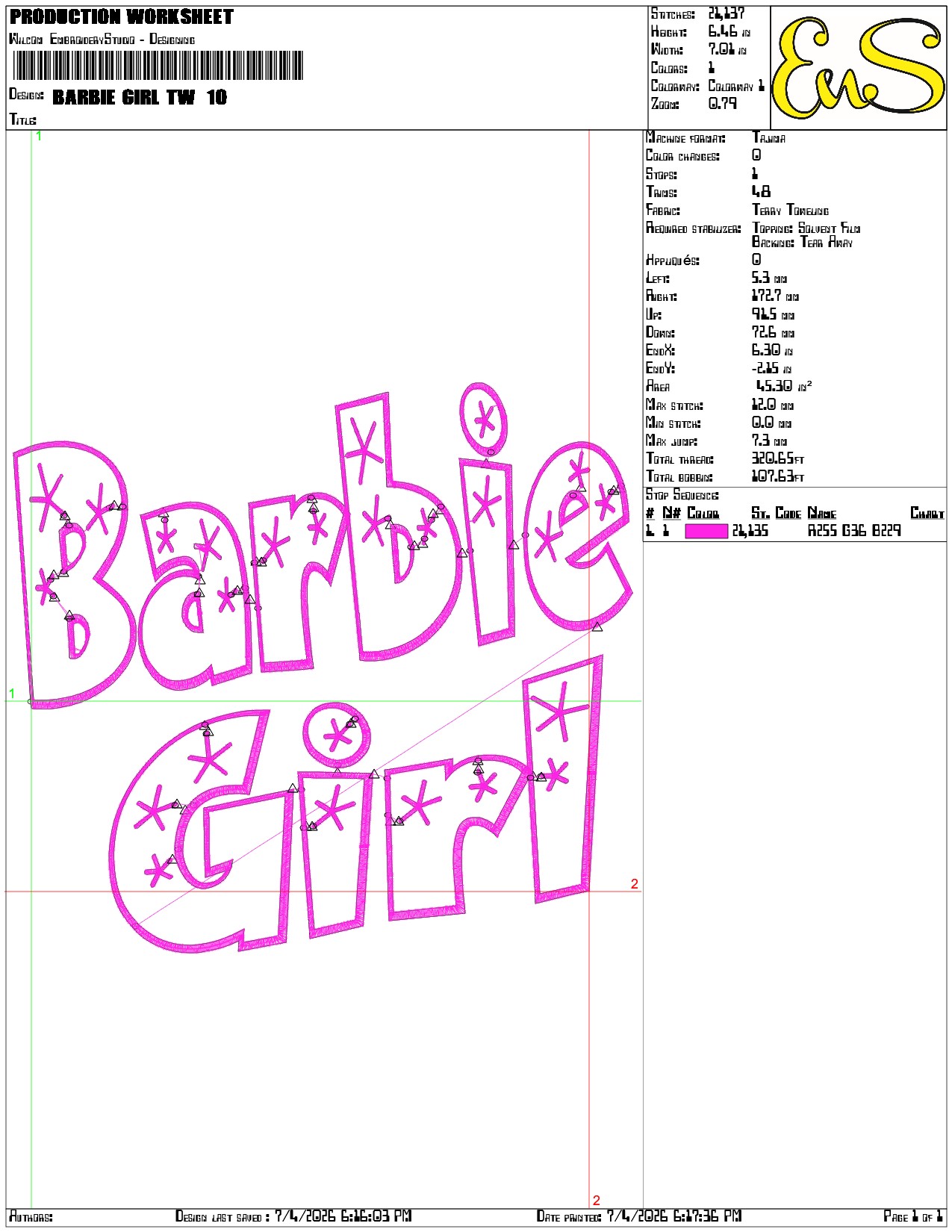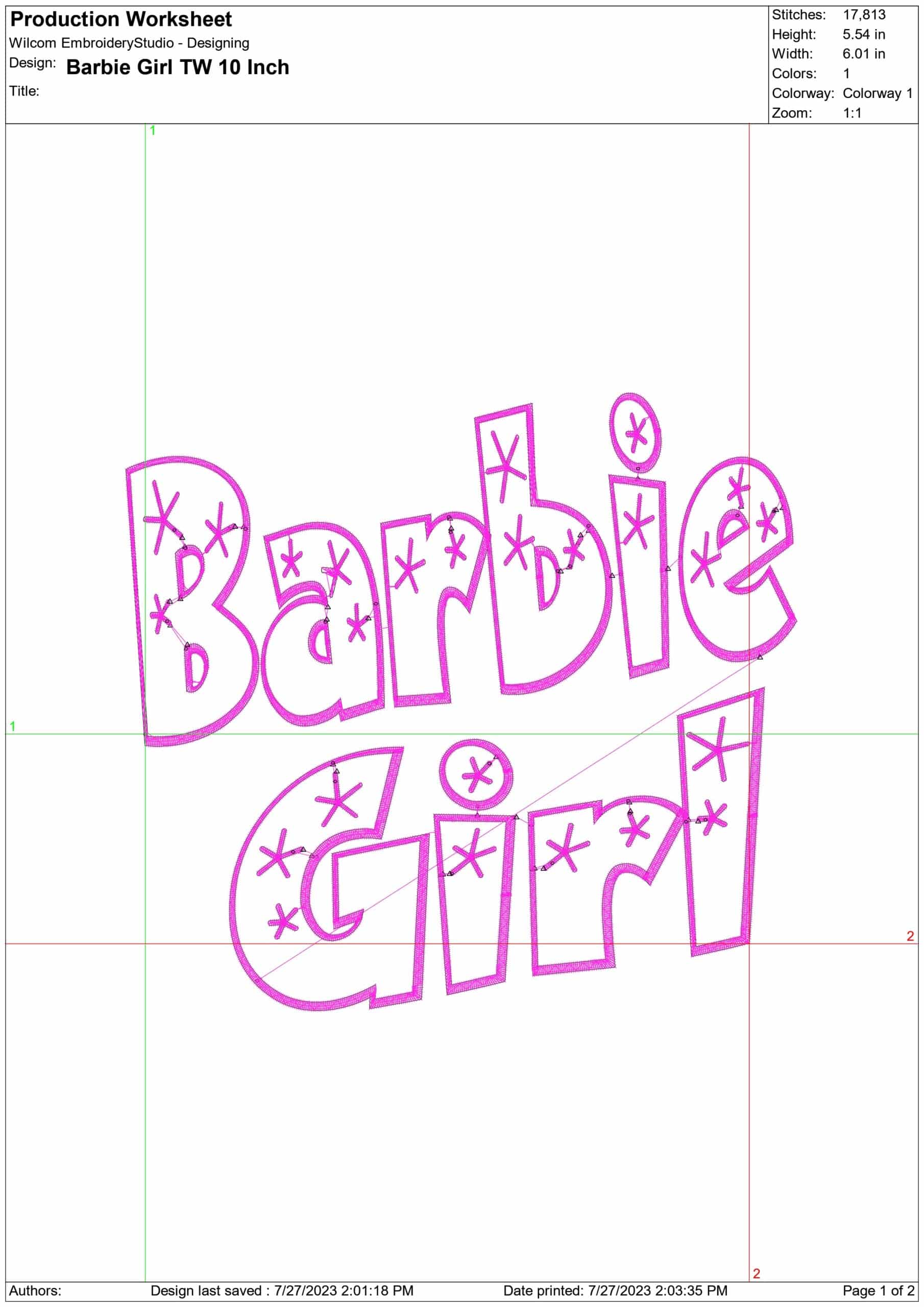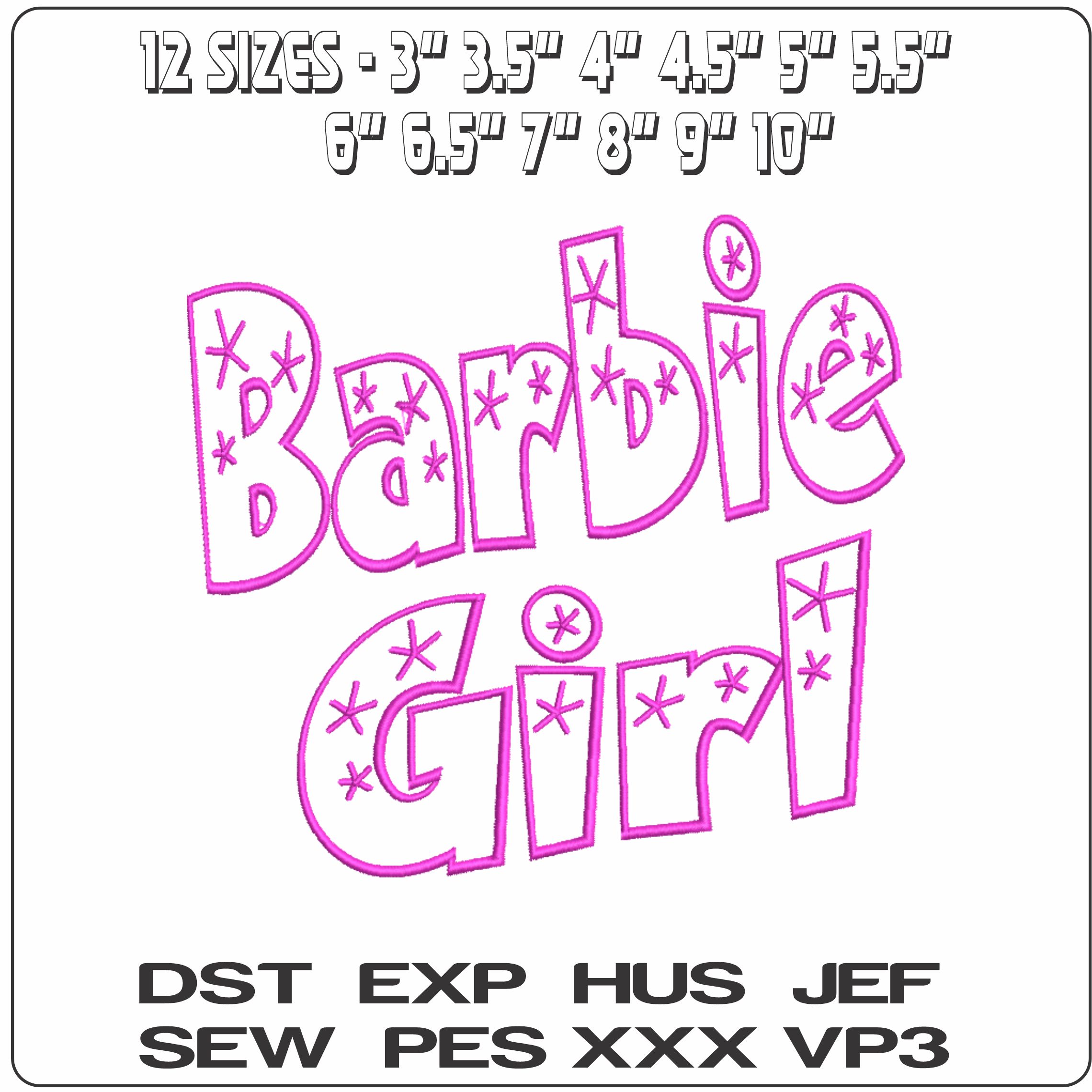
Bright pink Barbie Girl lettering with twinkle details for sweatshirts, tees and accessories that want a playful, instantly recognisable look.
Add bubble-letter sparkle to a sweatshirt, tote or bedroom accessory with this bright pink Barbie Girl text design. The wording is stacked for impact, with rounded lettering and little asterisk-style twinkles that give it that playful, doll-inspired feel. It suits children, Barbie fans and anyone who likes a sweeter, more feminine look on casual pieces.
Because it is an open, lightly stitched design in a single thread colour, it keeps the finish clean and easy to read without feeling heavy. It works especially well on cotton tees, hoodies, pyjama tops, quilt blocks and canvas bags where the pink text can stand out clearly. The simple construction also makes it a good choice when you want a bold logo-style statement inside a frame without covering too much of the fabric.